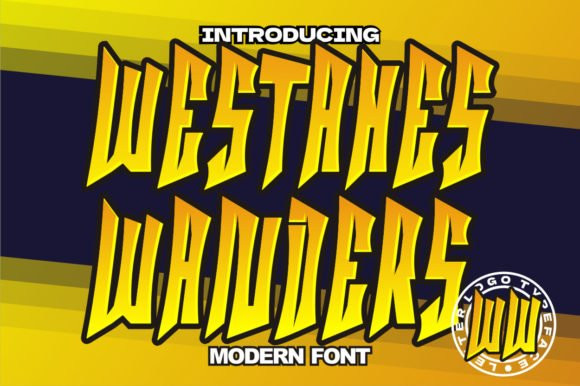
Westahes Wanders Font
Westahes Wanders is a cool, graffiti-styled display font that has a futuristic, street art vibe. This font is suitable for designs such as t-shirts, sportswear, logos, advertisements, clothing, and more.